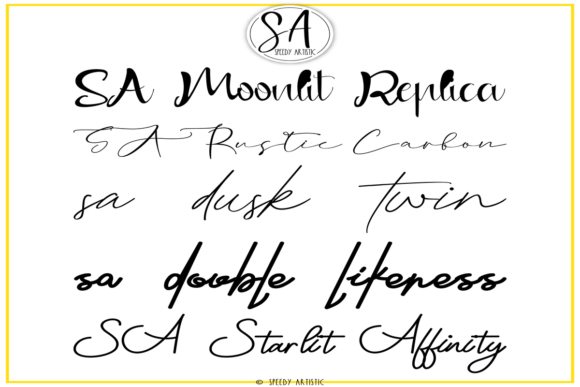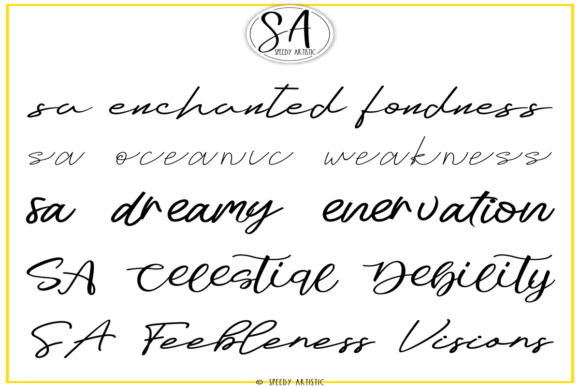
Introduction to Script and Handwritten Bundle 6 Font Font
Fonts play a crucial role in design, and the Script and Handwritten Bundle 6 Font font is a typeface that brings both character and versatility to any project. Whether you’re working on a branding project, a website, or a print design, the Script and Handwritten Bundle 6 Font font offers a unique style that can elevate your work.
This set includes 10 handwritten True-Type script Fonts (TTF) perfect for your everyday creation journey to create something catchy.
This font bundle is for creators who love to have a large collection of appealing fonts to use when creating new products Included Fonts: 01.
Key Features of Script and Handwritten Bundle 6 Font Font
• ✅ High-quality typeface designed for professional use
• ✅ Includes a wide range of glyphs and characters
• ✅ Ideal for logos, branding, websites, and print
Why Choose Script and Handwritten Bundle 6 Font Font?
The Script and Handwritten Bundle 6 Font font is more than just a typeface – it’s a design tool that helps you communicate your message with style and clarity. Its unique character set and versatile design make it suitable for a wide range of applications, from elegant invitations to bold headlines.
With its carefully crafted letterforms and balanced proportions, the Script and Handwritten Bundle 6 Font font ensures readability and visual appeal across all mediums.
What makes Script and Handwritten Bundle 6 Font font special?
The Script and Handwritten Bundle 6 Font font stands out with its unique design, exceptional readability, and versatility across various design applications.